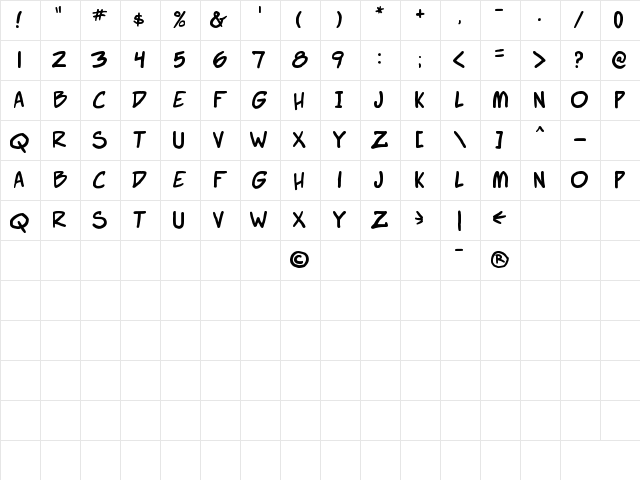
Webcomic Bros Regular
Designer: Andeh Pinkard
Design Context for Webcomic Bros
Webcomic Bros has an approachable, lighthearted character - its loose, expressive forms are well-suited to children's content, casual branding, and fun-first design.
Font Pairing: Pairs well with a rounded or humanist sans for body copy, maintaining the friendly tone without relying on Webcomic Bros to carry extended reading.
Pro Tip: Use Webcomic Bros at larger display sizes where its expressive character can land. Pair with a clean, simple sans for body copy to maintain readability.